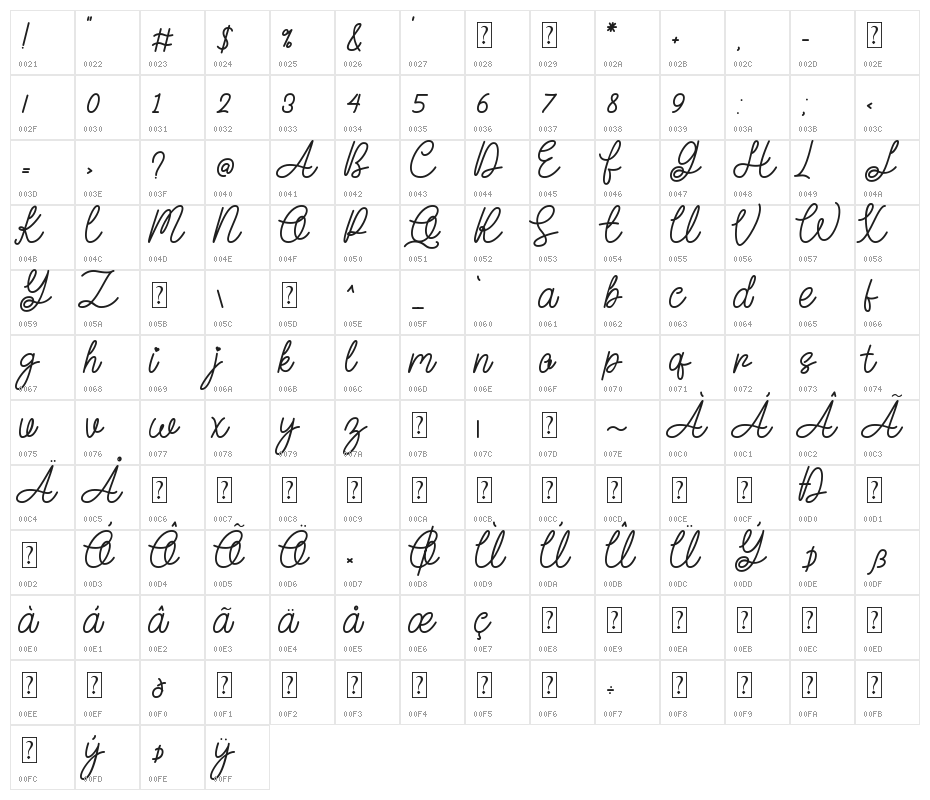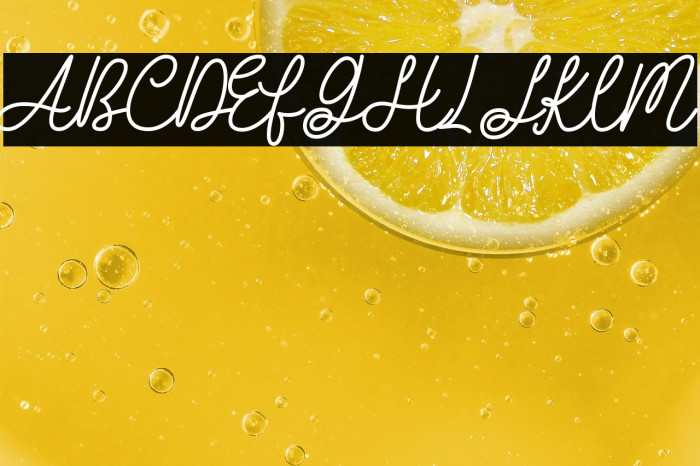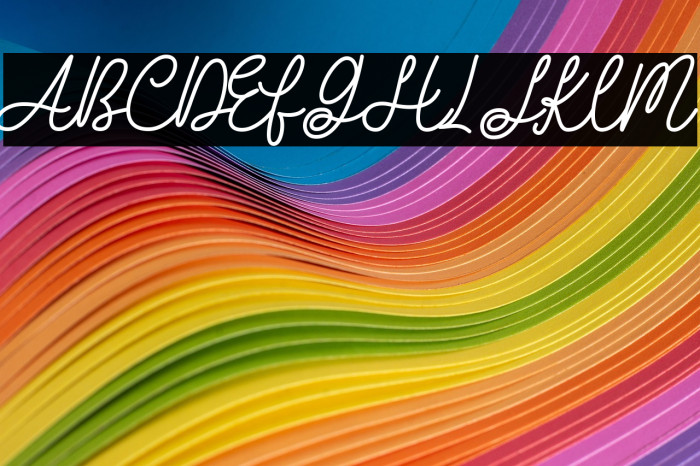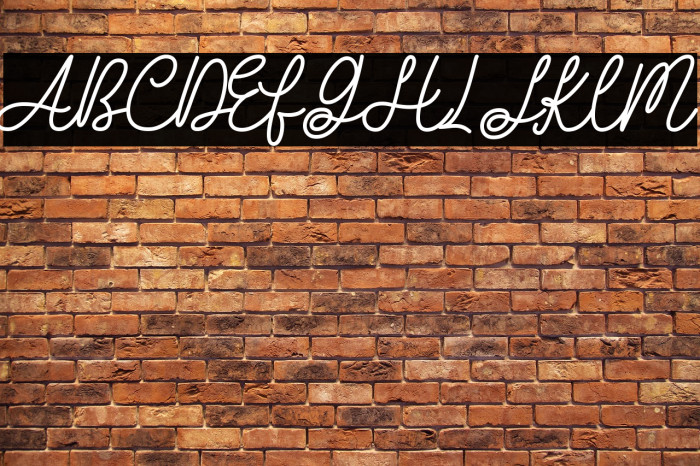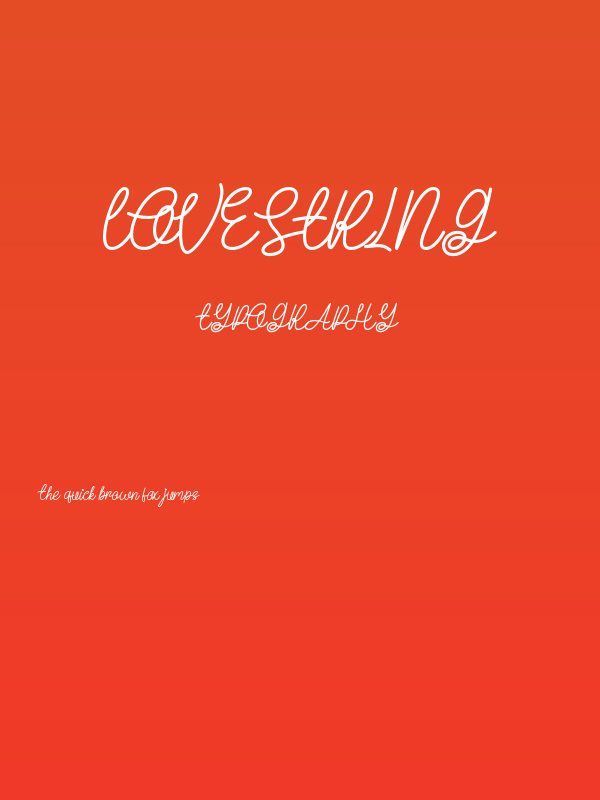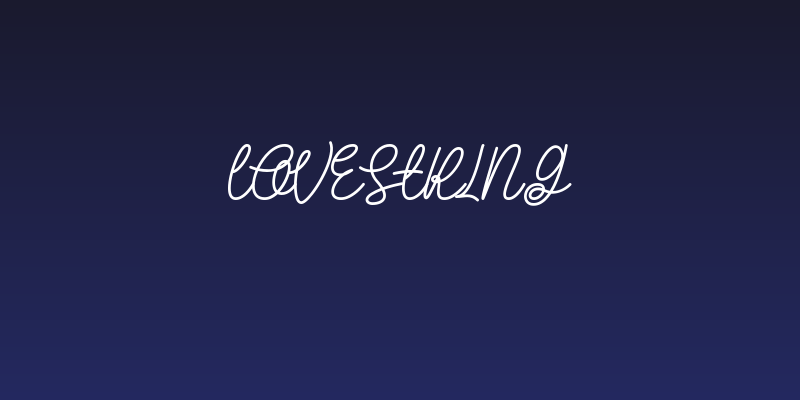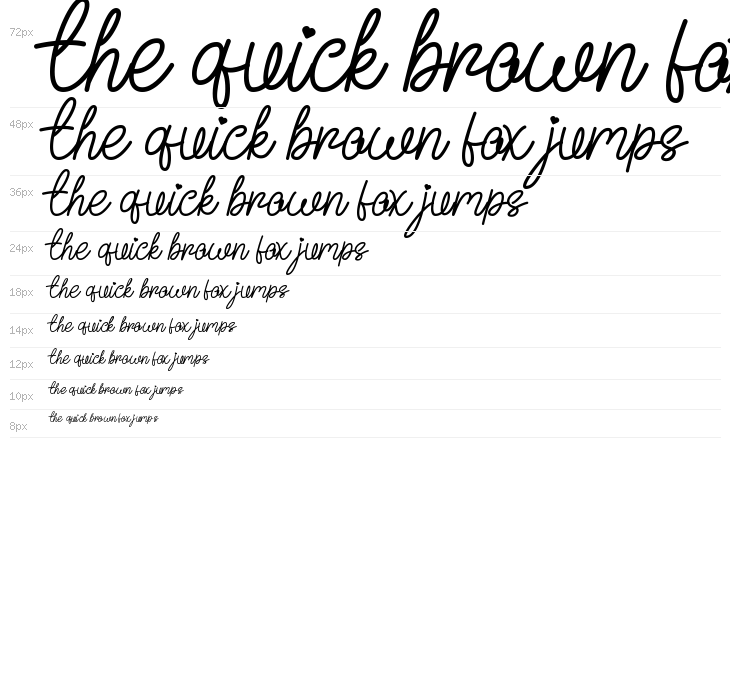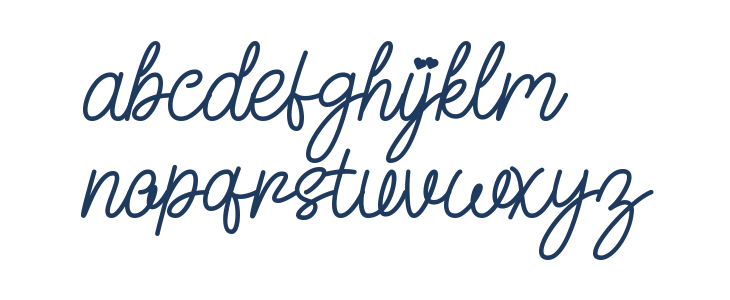
Love String Font
Love String Description
This font features a flowing, cursive style with elegant loops and swirls, giving it a romantic and whimsical feel. The uppercase letters are distinct with their tall, sweeping ascenders, while the lowercase letters maintain a consistent baseline with playful descenders. The numerals are clear and maintain the script style, ensuring readability. Special characters are creatively integrated, maintaining the overall aesthetic. The font's smooth curves and consistent stroke width make it suitable for decorative purposes, adding a touch of elegance to any design.
| Use Case | Logos, Invitations, Decorative text |
| Proposed Projects | Ideal for wedding invitations, greeting cards, branding, and decorative signage. |